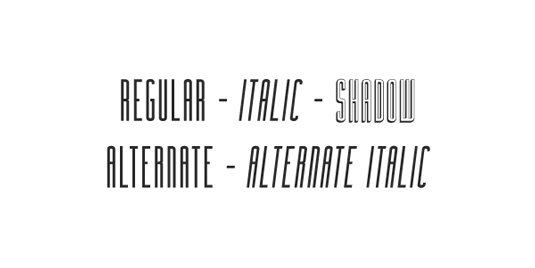
Font of the day: Facunda
Facunda by Bu!
Today's font of choice Facunda was created by graphic designer that goes by the name of Bu!. This condensed display font is free for both commercial and personal use and is available in five different styles.